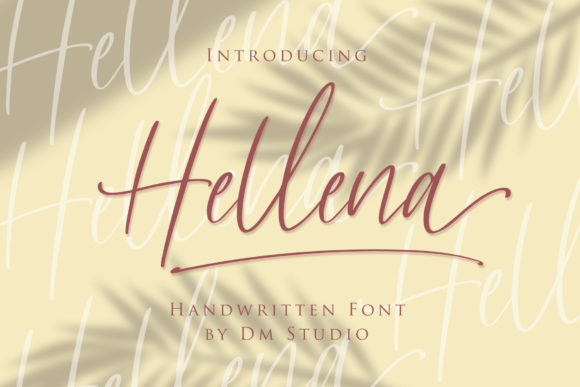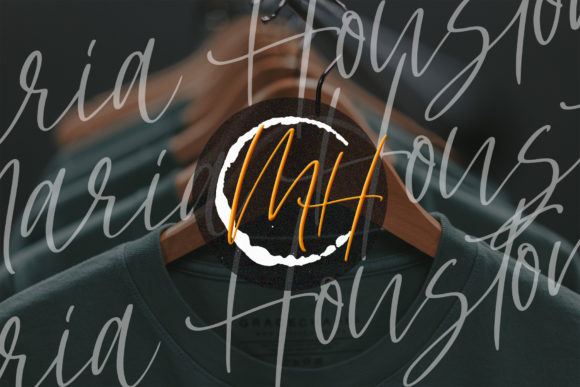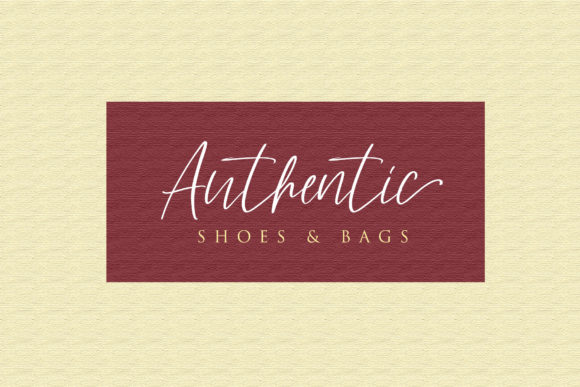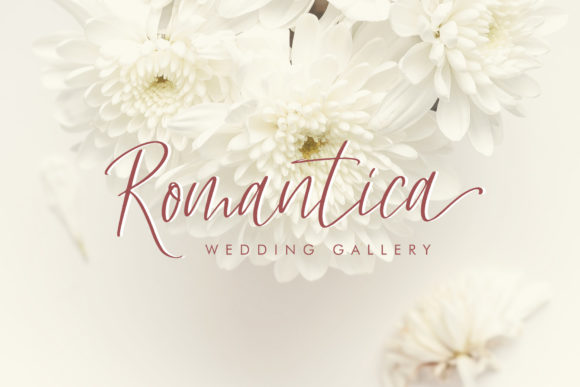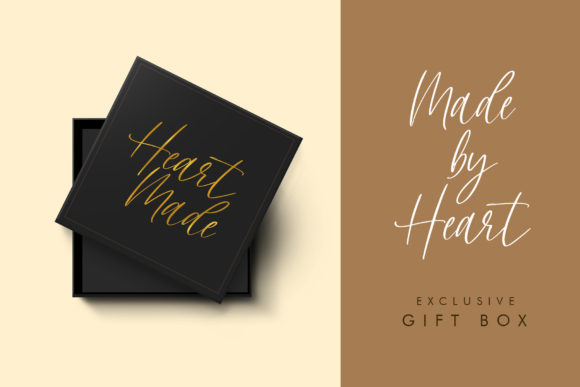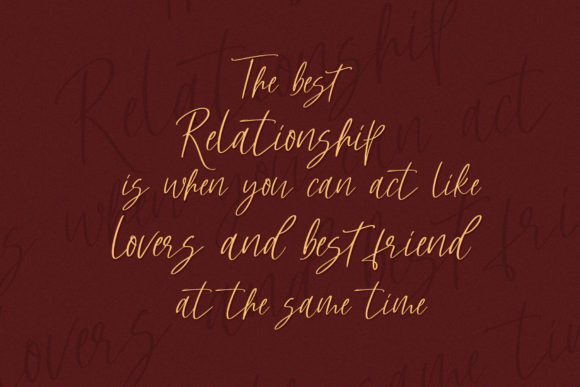
Hellena Font
About Hellena Font
Hellena is an organic, smooth, and gorgeous dancing font made carefully from real handwriting. Fall in love with its unique charm.